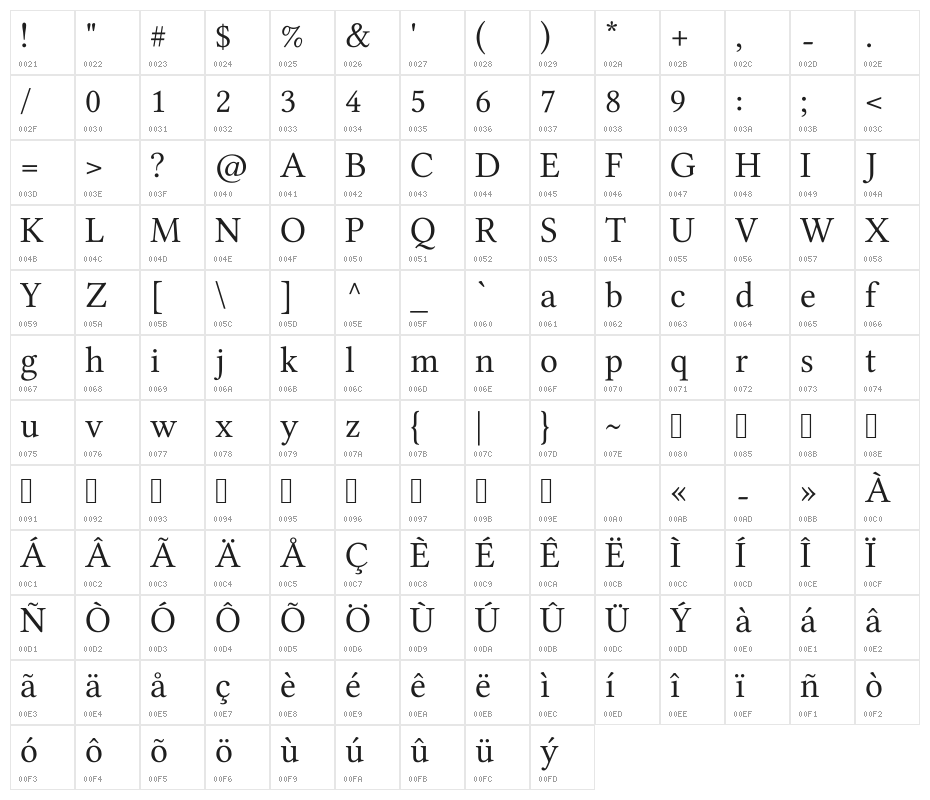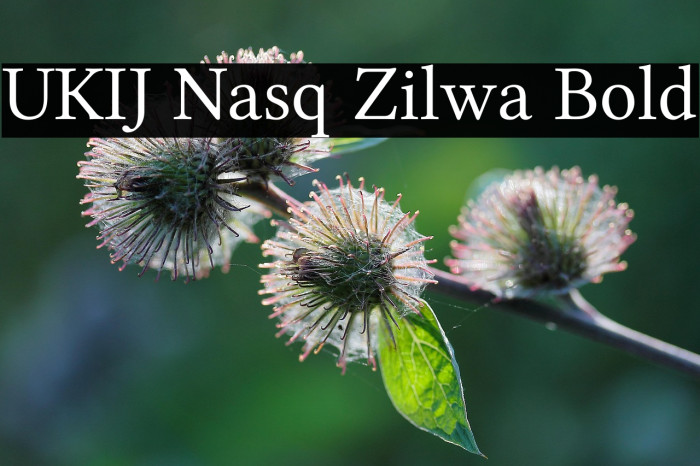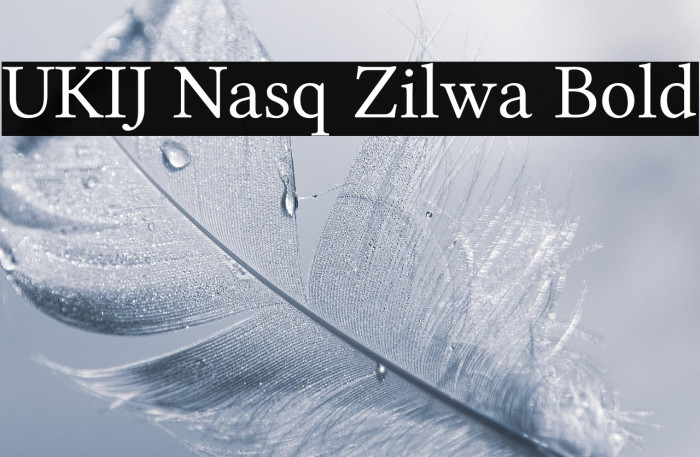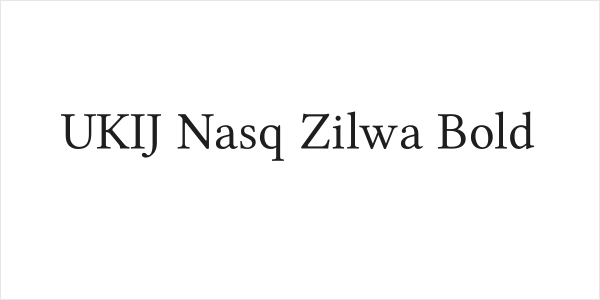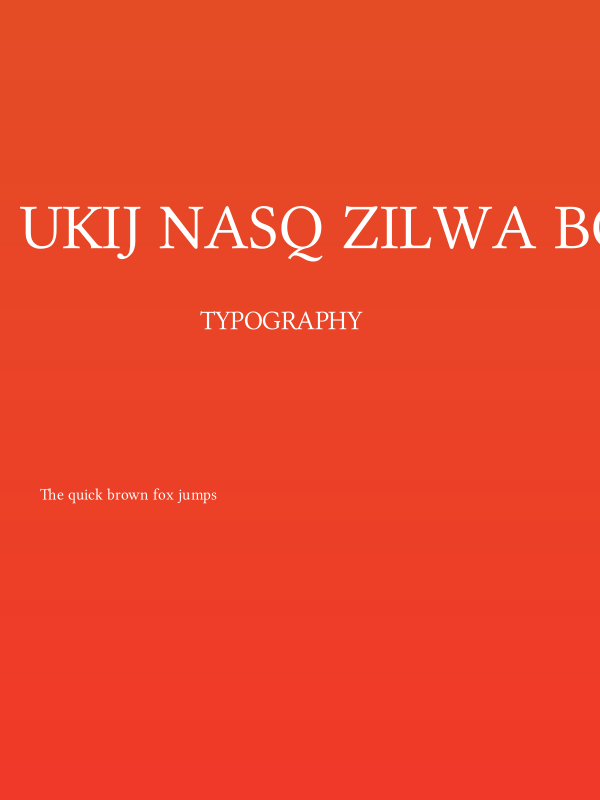
UKIJ Nasq Zilwa Bold Font
UKIJ Nasq Zilwa Bold Description
This font features a classic serif style with elegant and well-defined strokes. The uppercase letters are bold and commanding, while the lowercase letters maintain a balanced and readable appearance. The numerals are clear and consistent, making them suitable for various applications. Special characters are distinct and harmonize well with the overall design. The font exhibits a timeless quality, making it versatile for both traditional and modern uses.
| Proposed Projects | Ideal for book covers, formal invitations, editorial layouts, and branding materials. |